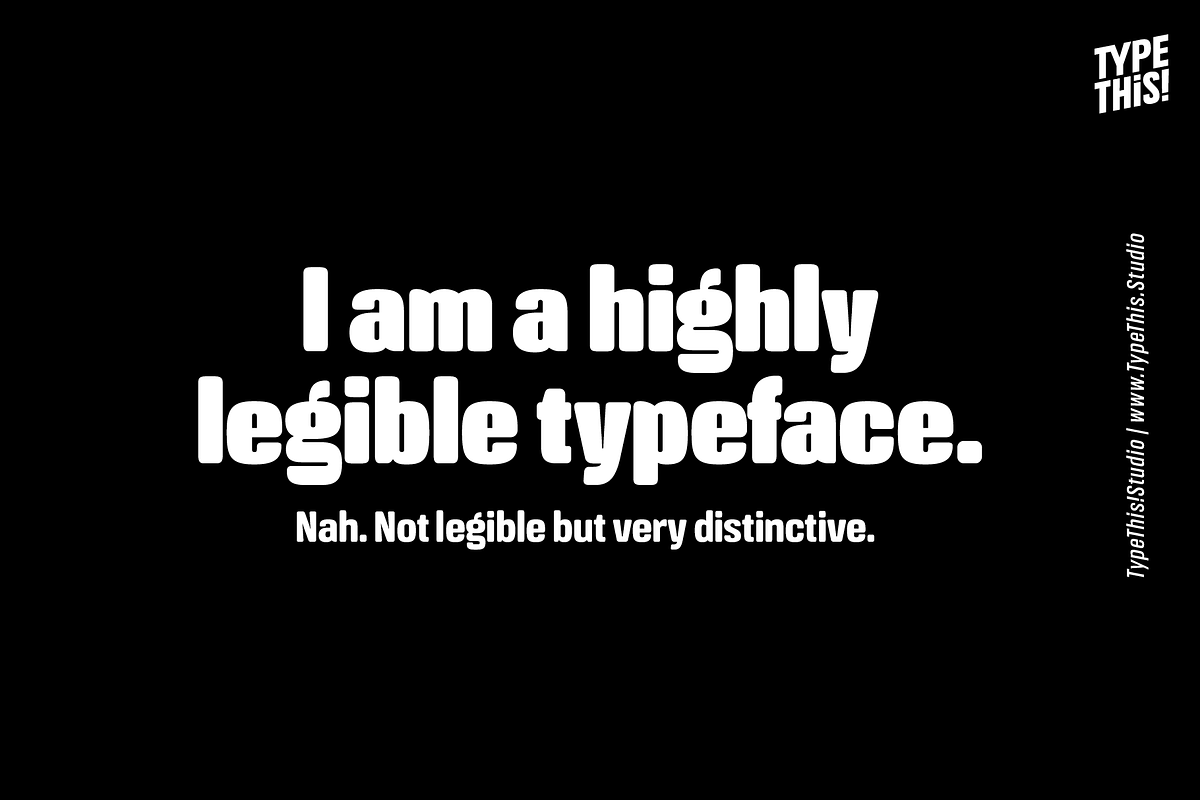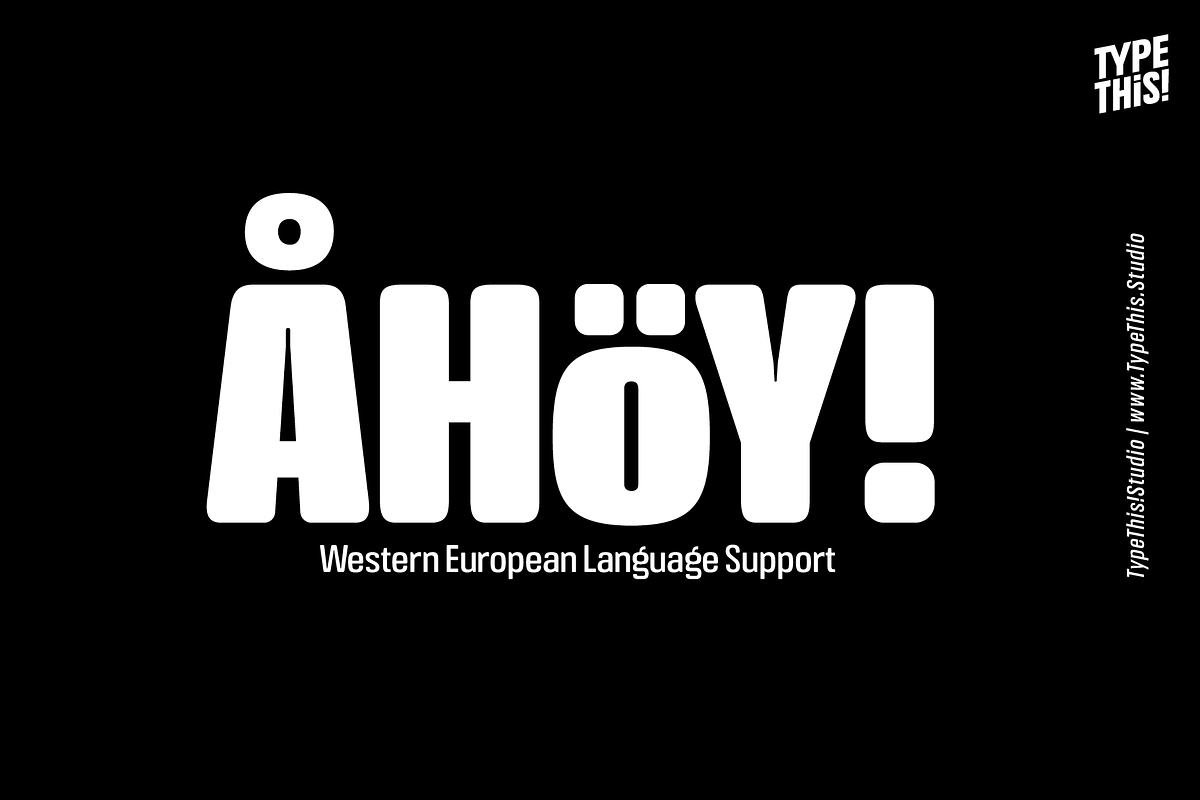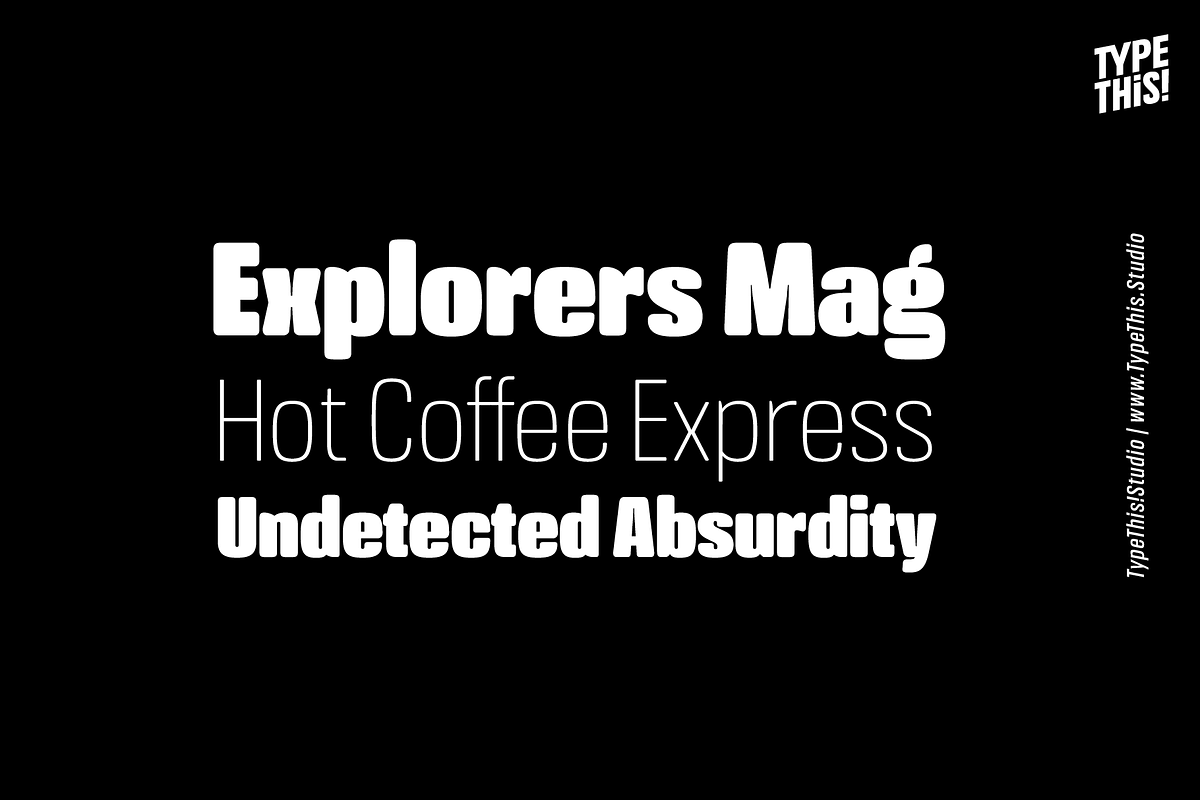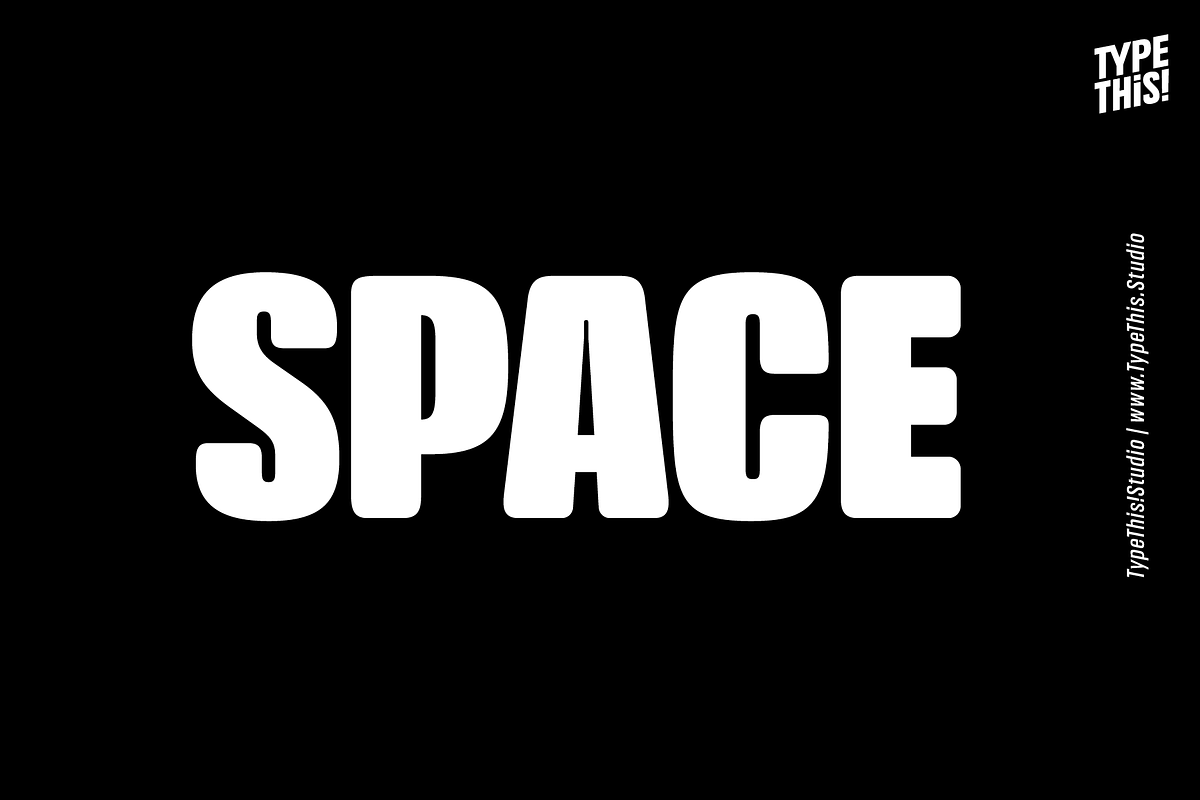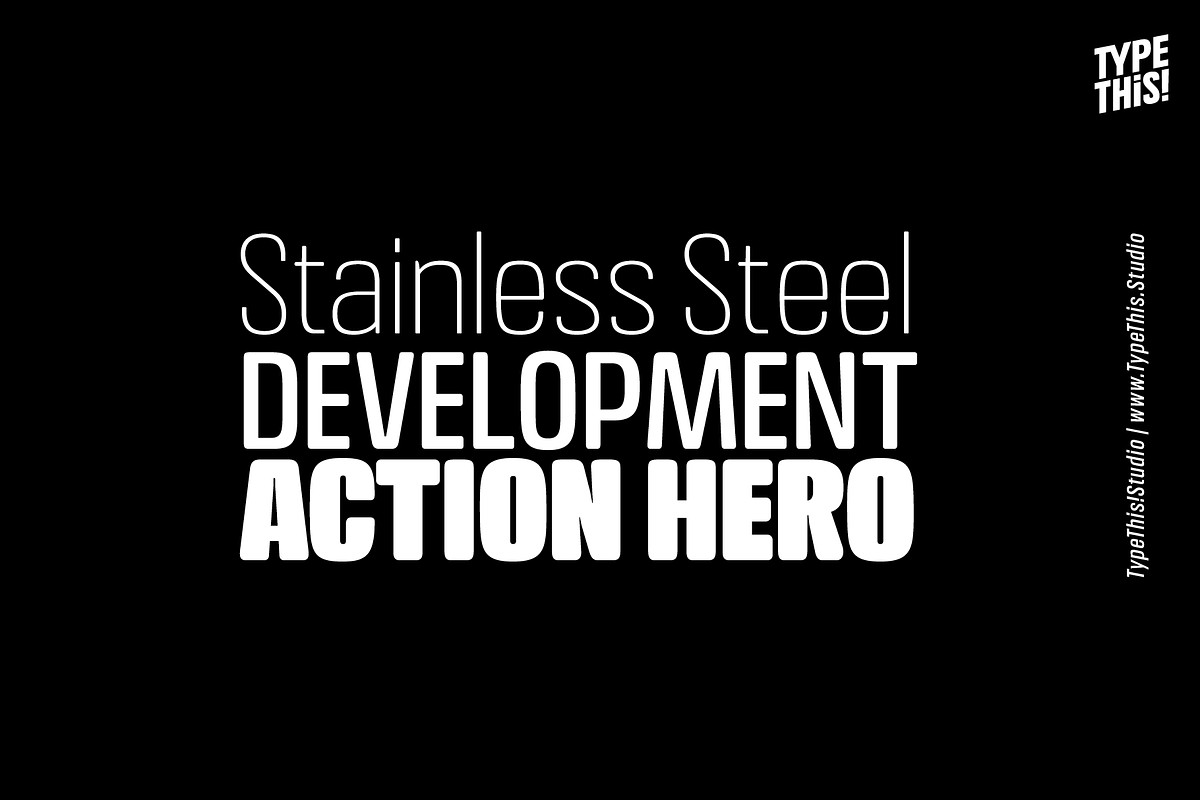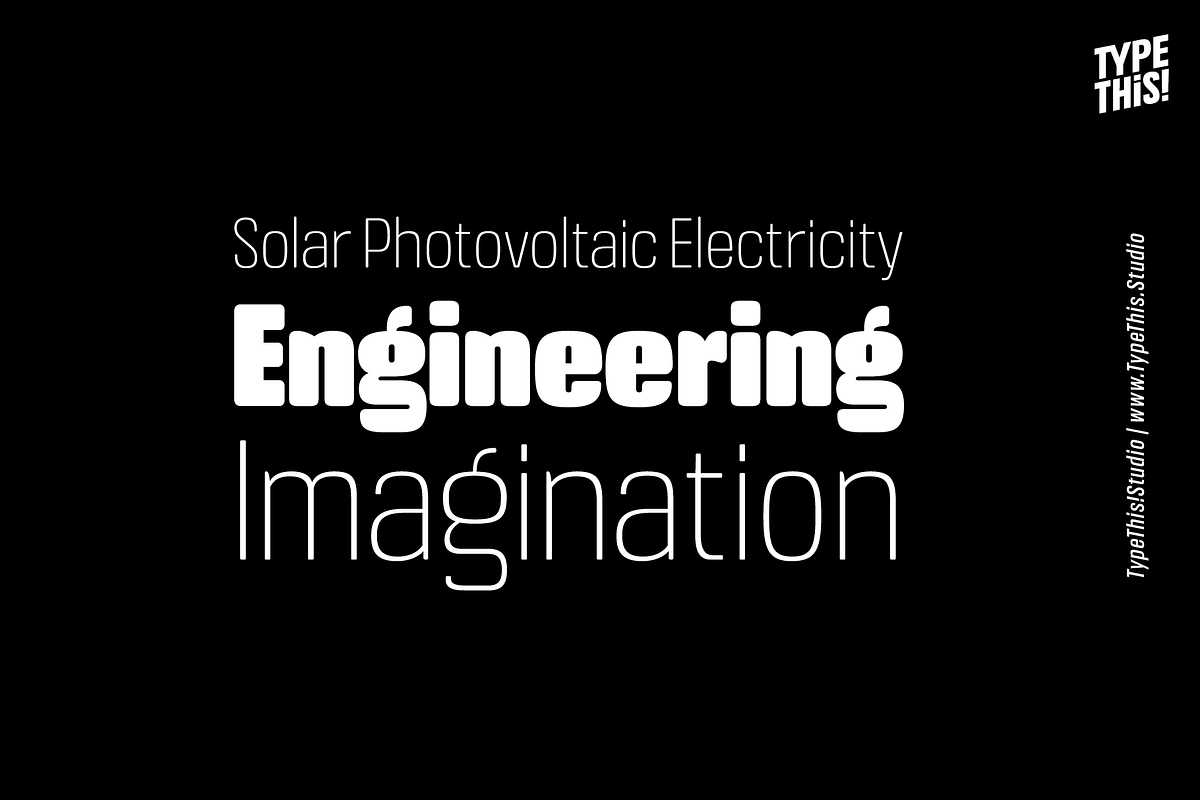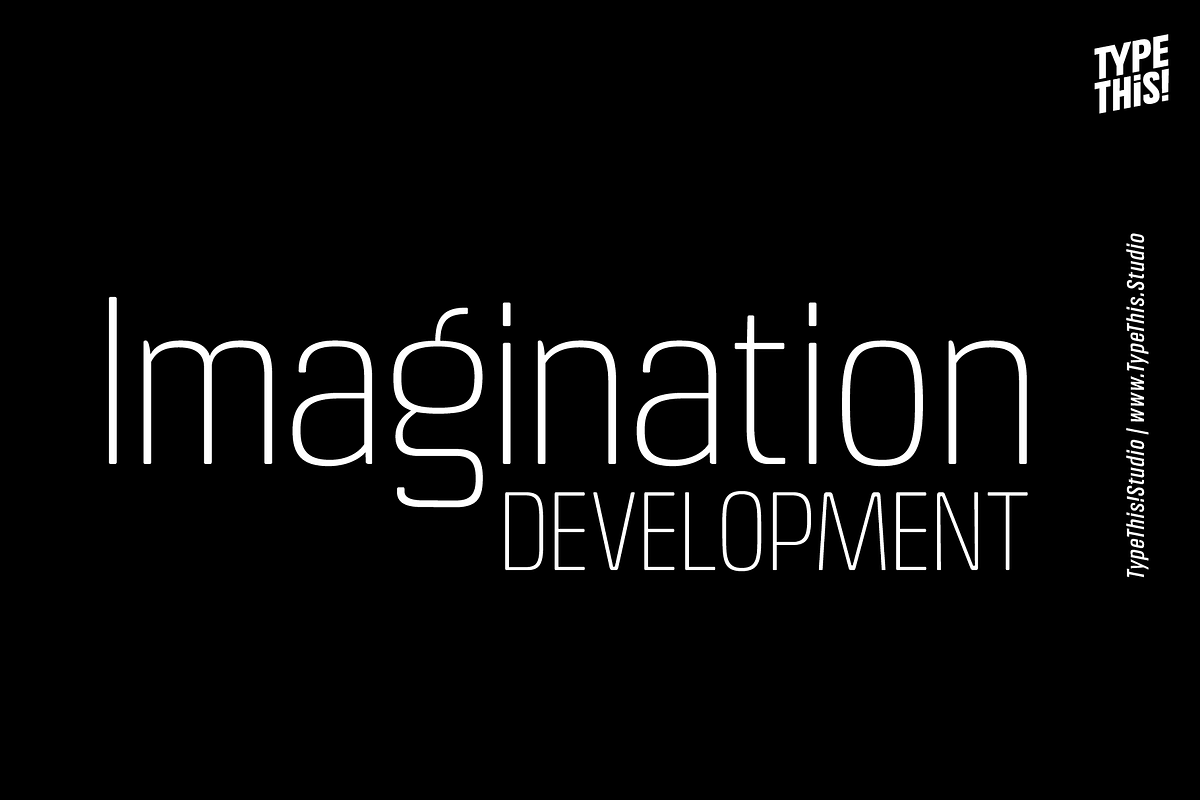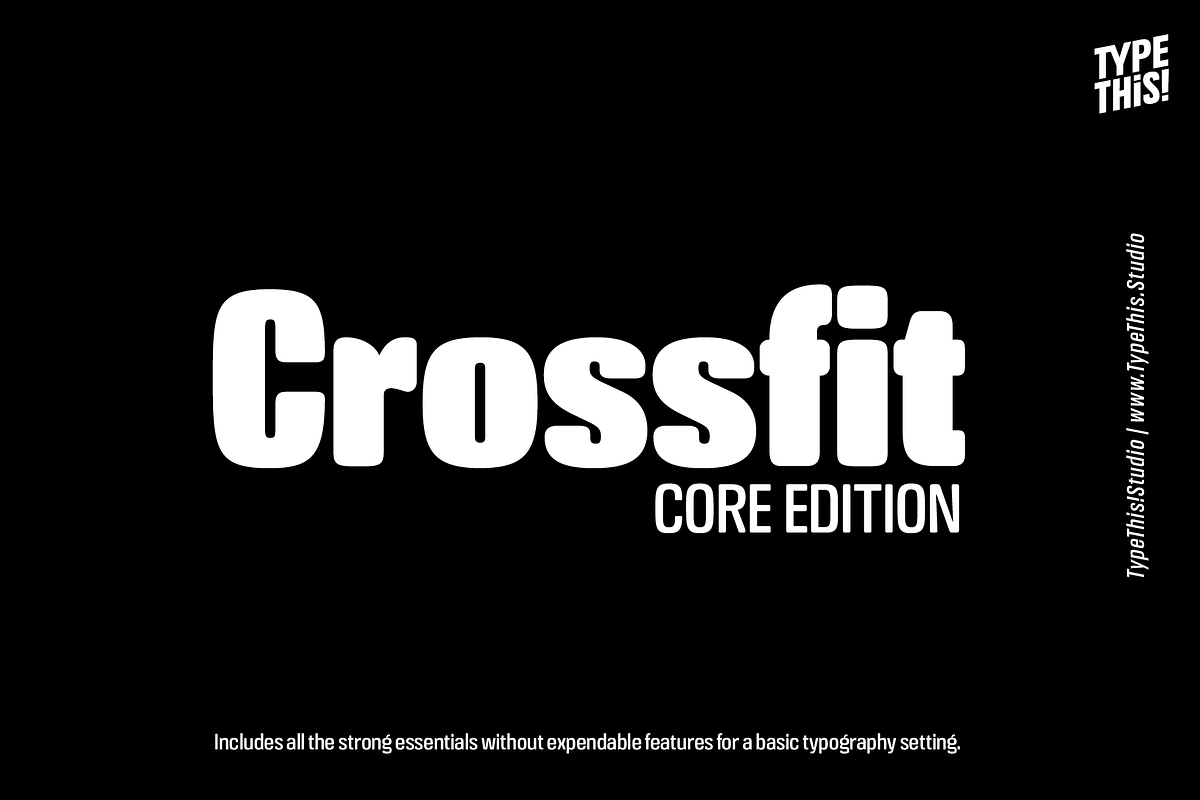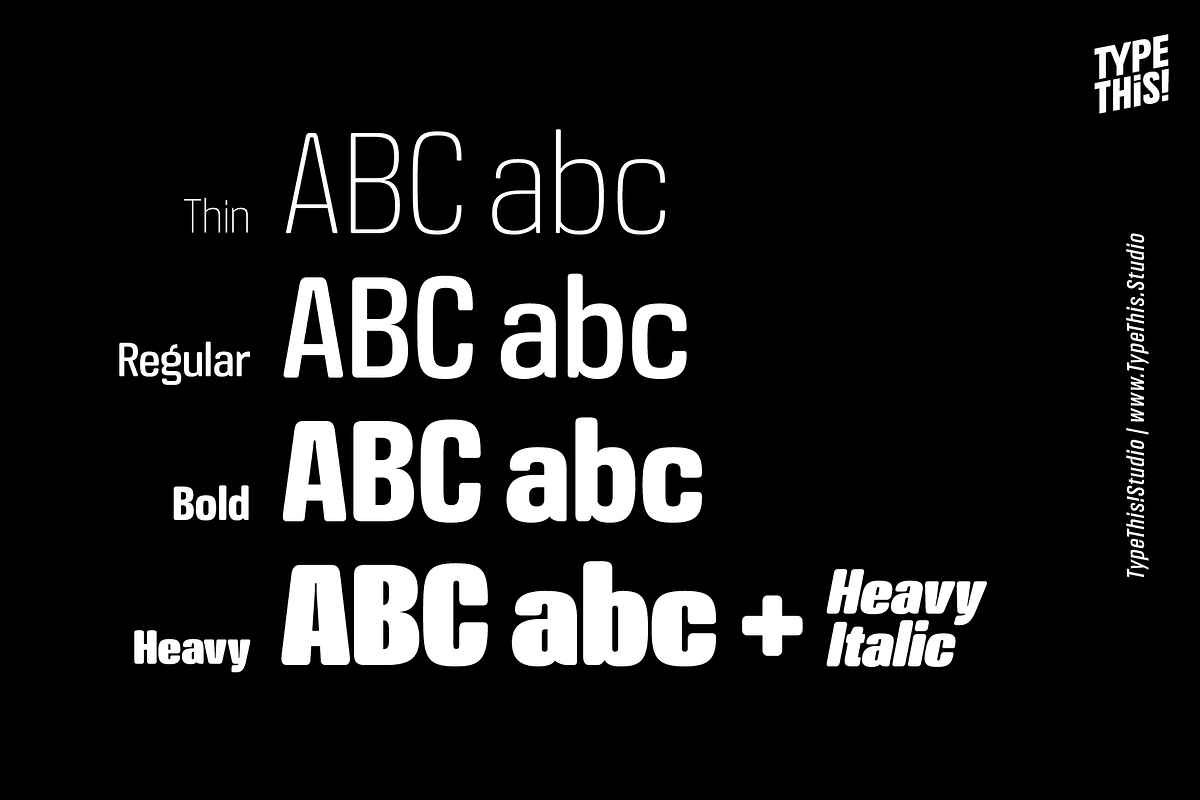
Crossfit Core Edition
Crossfit is a new headline font for great sizes, such as big movie posters, advertising or editorials. Matching topics might be adventures, sports, strong nature and all kind of challenging life events. Its bold stability transformes your creation into a non questionable design. It is bold, clear and also friendly thanks to its rounded corners. With its non eccentric steadiness Crossfit underlines all your exciting creations in magazines, editorial, title design and of course: your big blockbuster movie.
This version covers all the essentials of Cosima
- 265 Characters
- 8 Styles, including Italics
- Western European Language Support